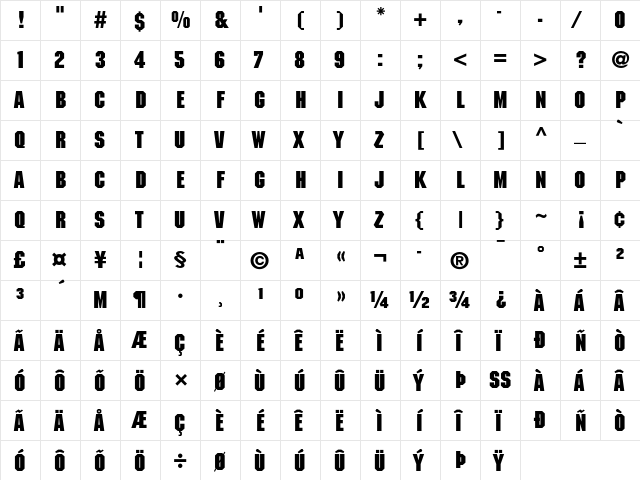
ITC Machine Bold Font Preview
ITC Machine Bold
Design Context for ITC Machine Typeface
ITC Machine takes a measured approach to typography — its balanced proportions and neutral character make it a reliable workhorse for both digital and print work. Its bold stroke weight gives it real presence on the page.
Pro Tip: Pair ITC Machine with a font of contrasting weight or personality to build a more expressive typographic hierarchy.